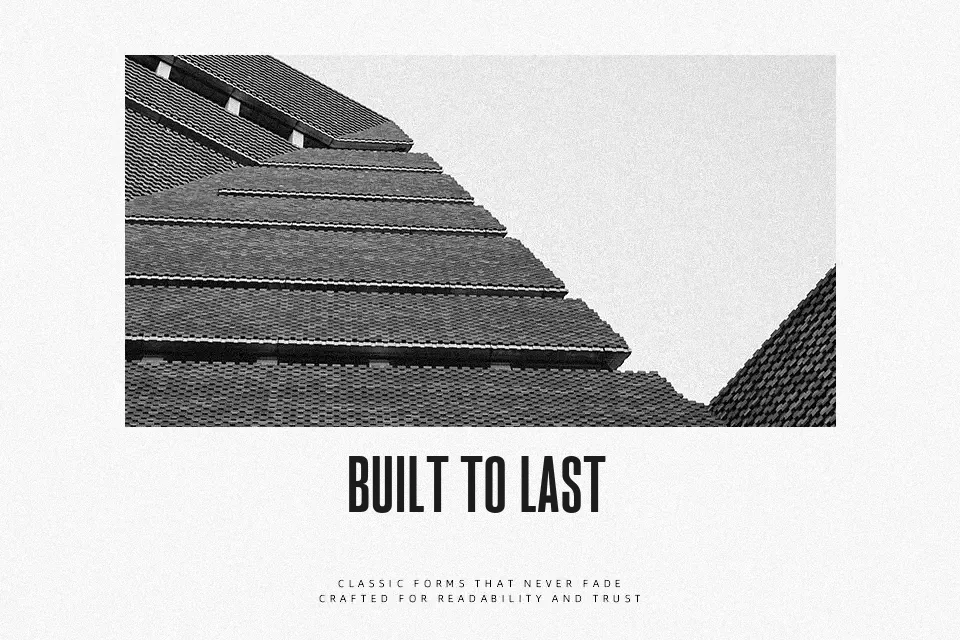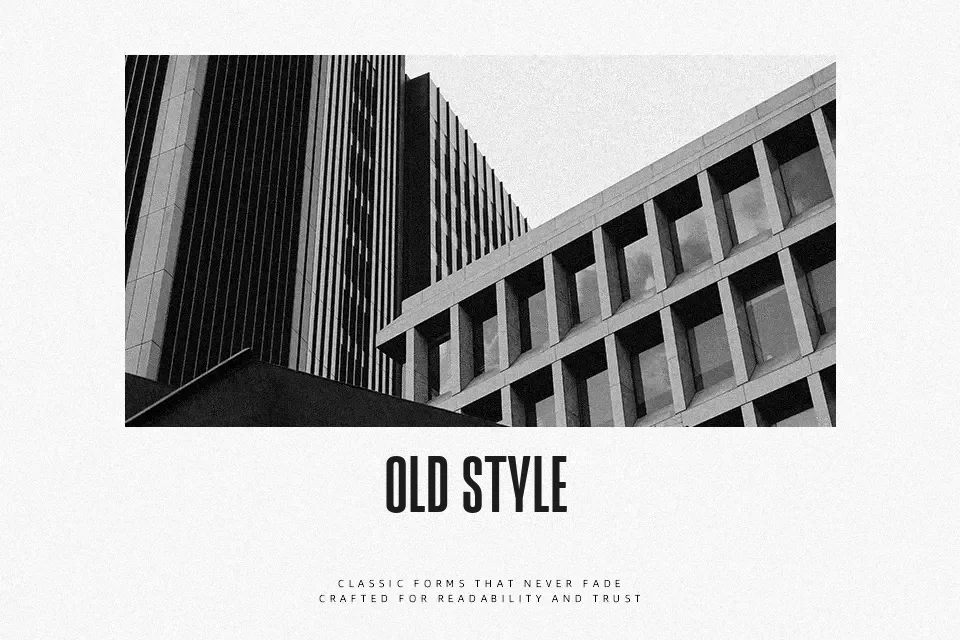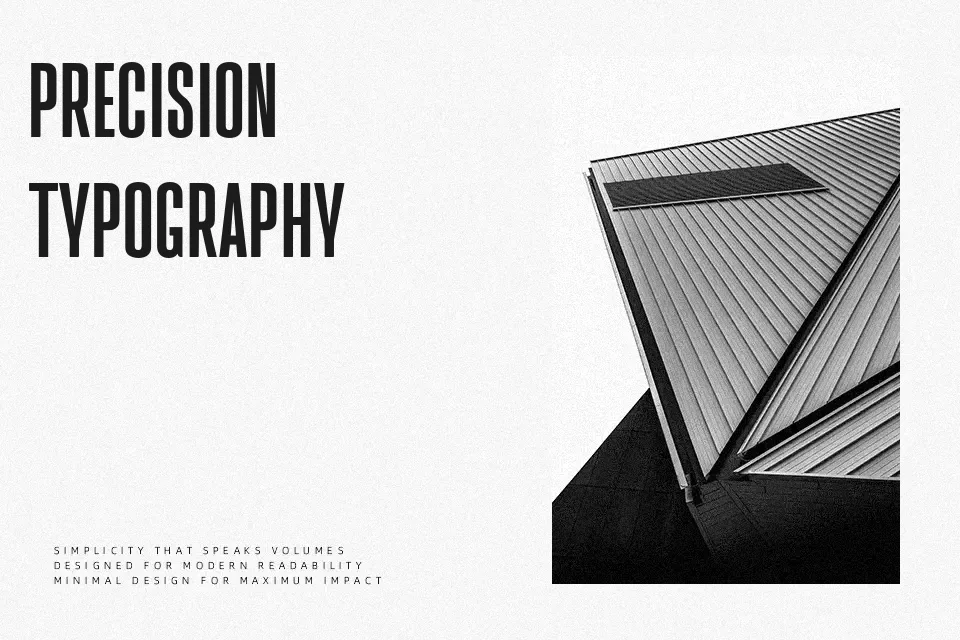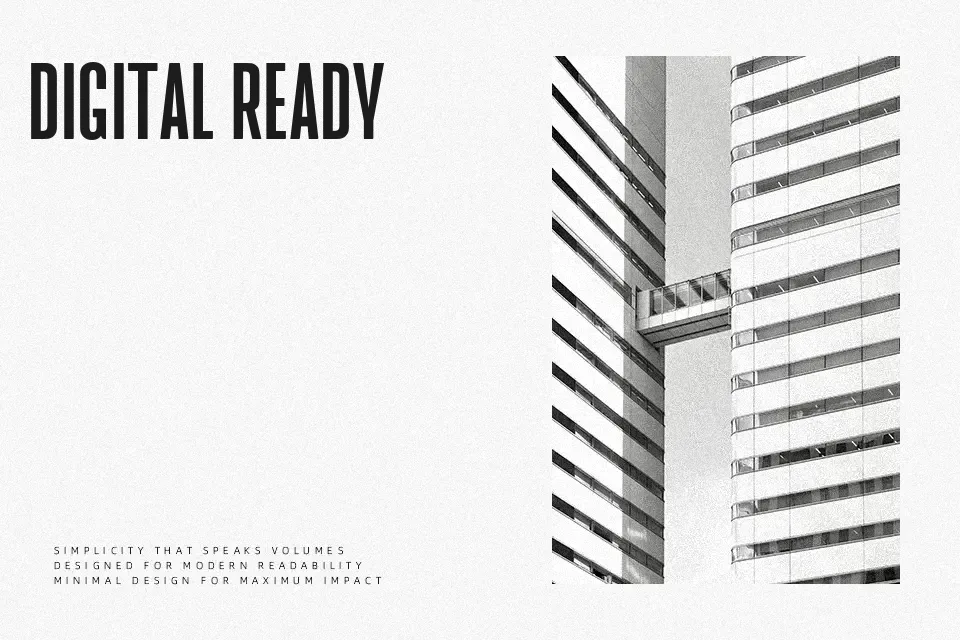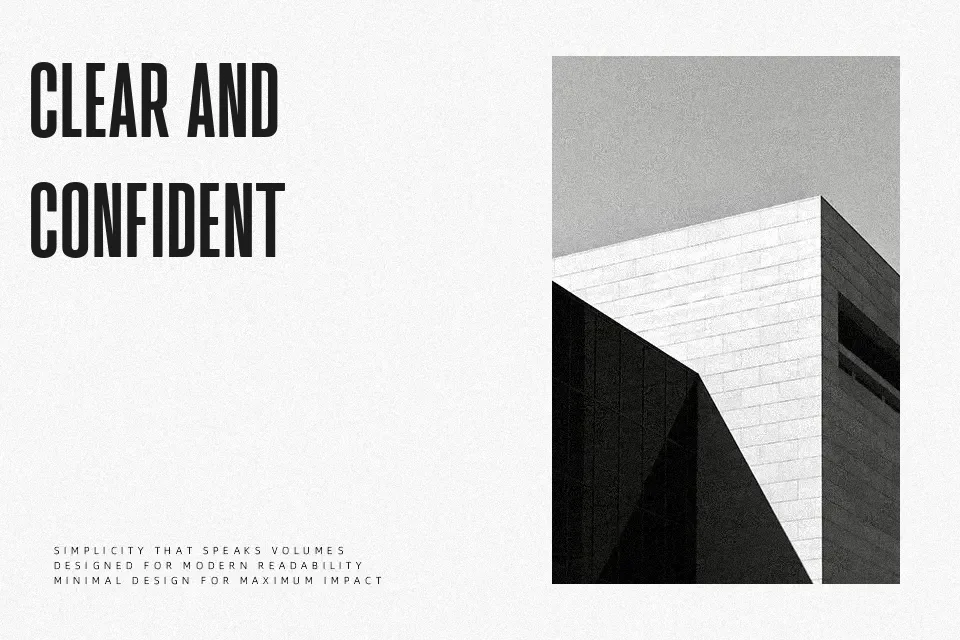
Brusio Font
Brusio is a meticulously crafted geometric sans serif that balances modern sophistication with clean aesthetics. Its structural integrity is defined by condensed letterforms, uniform stroke weights, and tight spacing, creating an authoritative yet approachable presence. The sharp typography lends it a highly professional, minimalist vibe. This typeface excels when applied to striking editorial headlines, corporate branding mockups, and large-scale poster designs where vertical space economy is paramount. However, due to its strictly condensed nature, Brusio struggles in lengthy body paragraphs or small UI elements where tight spacing impairs legibility. If you normally rely on wide fonts for text-heavy layouts, reserve this exclusively for your high-impact, display-level typographic needs.
– High-impact editorial headlines and magazine covers
– Corporate branding and minimalist logo marks
– Large-scale poster designs requiring space-efficient typography
– Dense body text or lengthy paragraphs
– Small-scale mobile UI design elements
– Wide, horizontally expansive design layouts
Perfect for branding, editorial, and headline, with a bold and condensed style.